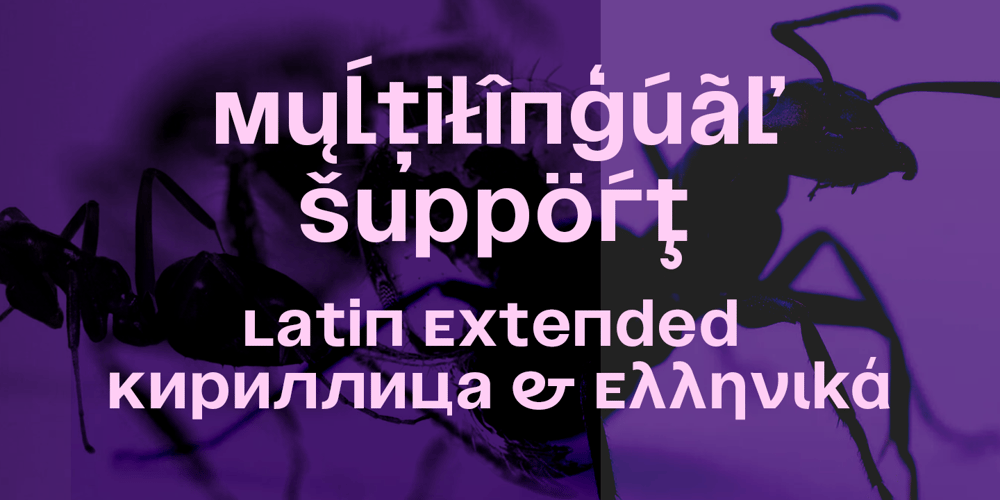
Nimbusant Bresslo Font Family was designed by Bogdan Balatchi and published by DePlictis Types. Nimbusant Bresslo contains 1 styles and family package options. Nimbussant Bresslo is a contemporary sans and attipic unicase were lowercase alternates with smallcaps creating an unusual look that can be used in posters, logo design and headings or small bold plain texts. This grotesque typeface supports most of the latin based languages and also kyrillic and greek alphabets. For a plus of a modern and young appeal, some of the letters have a very sharp, straight and minimalist body design but you may find also their stylistic alternates to better emulate the look you find more appropiate for your design.